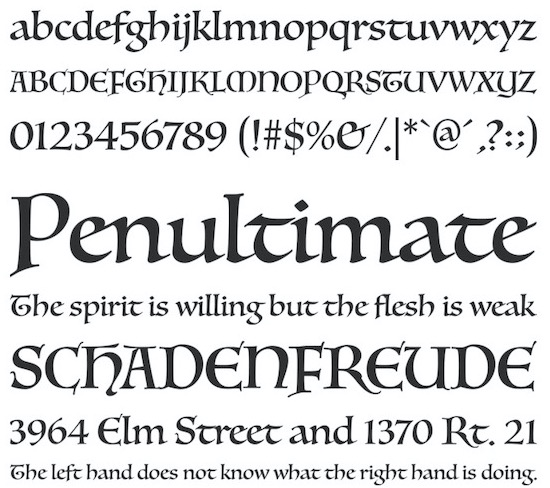
Introducing Luminari Font – Gothic Display Font, it’s a unique classy delicate font that was designed and published by Philip Bouwsma. It’s suitable for use in various contemporary designs such as posters, newspapers, tattoos, labels, gothic lettering, headlines, magazines, t-shirts, and more.
Luminari Gothic Display Font
Name: Luminari
Designed, Published by: Philip Bouwsma
Categories: Gothic, Display